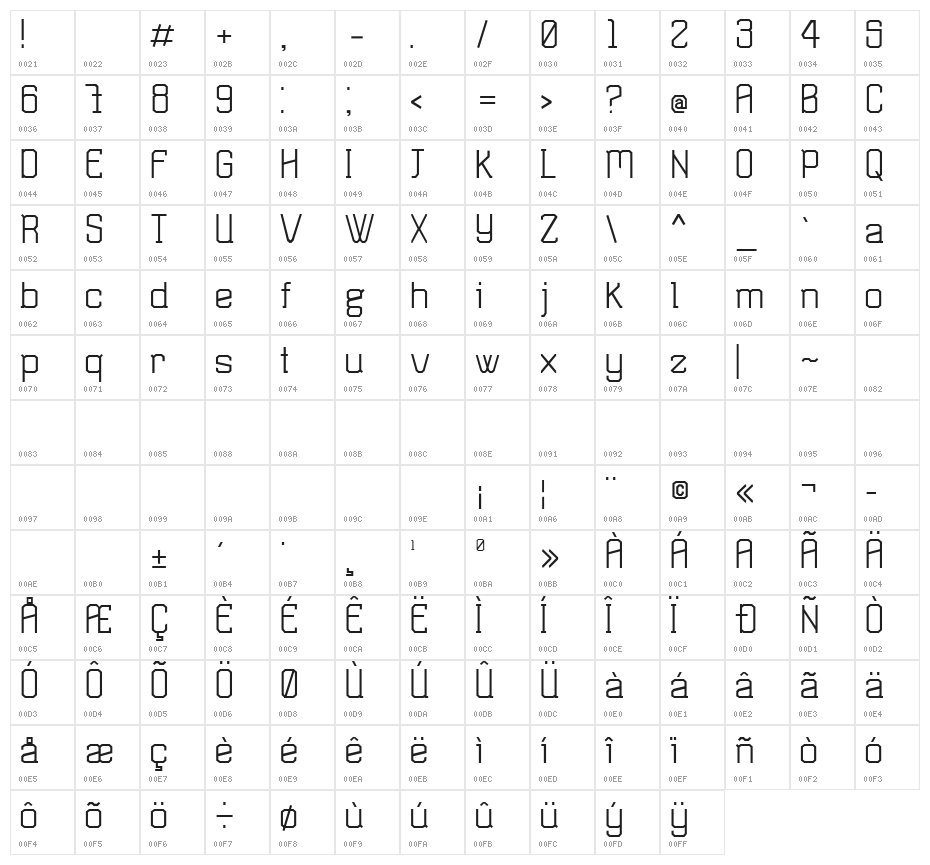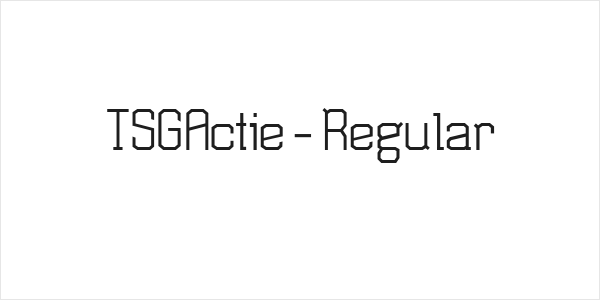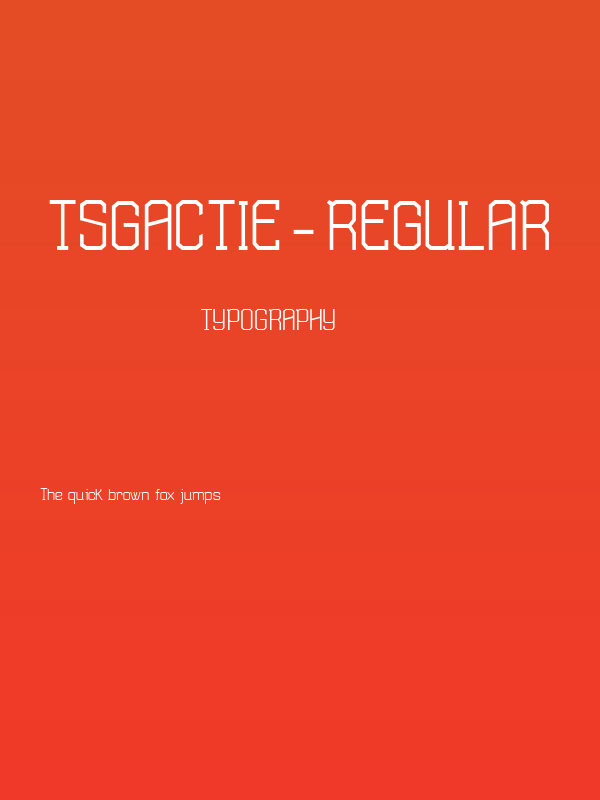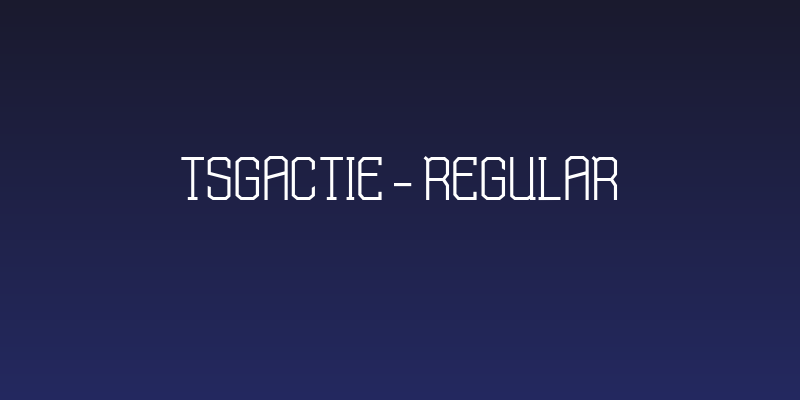
TSGActie-Regular Font
TSGActie-Regular Description
This font features a geometric and structured design, characterized by its angular and modular letterforms. The characters are composed of straight lines and sharp angles, giving it a modern and technical appearance. The uppercase and lowercase letters maintain consistent proportions, creating a uniform look across the typeface. The numerals and special characters follow the same design principles, ensuring cohesion throughout. This font is well-suited for projects that require a contemporary and industrial feel, such as technology branding or architectural designs.
| Proposed Projects | Ideal for technology branding, architectural designs, and modern posters. |